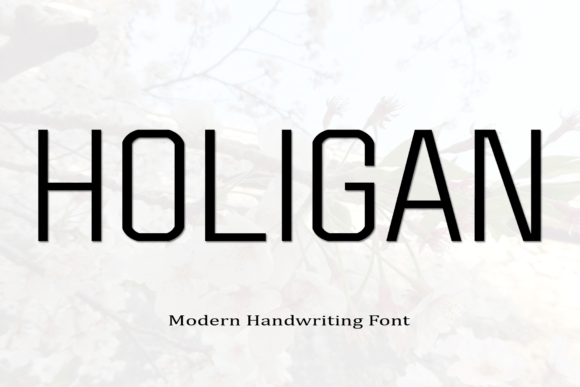
In the realm of typography, Holigan Font stands as a beacon of simplicity, a classic sans serif font that exudes a timeless elegance. Its strokes, crafted with a touch of randomness and freedom, lend it an air of spontaneity and creativity. This font is not just a collection of letters; it's an invitation to unleash your imagination and let your words dance across the page with grace and flair.
Whether you're a seasoned designer or just starting your creative journey, Holigan Font is your perfect companion. Its versatility knows no bounds, making it the ideal choice for a multitude of projects. From crafting elegant wedding vows that will forever hold a special place in your heart to designing captivating logos that leave a lasting impression, Holigan Font is here to elevate your designs to new heights.
Imagine your wedding vows, penned in the beautiful strokes of Holigan Font. The words, filled with love, commitment, and joy, will leap off the page, carrying the weight of your emotions with grace and elegance. Each letter, a symbol of your unwavering bond, will resonate with your guests, creating a moment of pure magic that will be cherished for a lifetime.
Or perhaps you're a creative entrepreneur, pouring your heart and soul into building your brand. Holigan Font will be your trusted ally, helping you create a striking brand identity that speaks volumes about your values and aspirations. Its clean lines and timeless appeal will make your brand shine, leaving a lasting impression on your customers.
Dive into the world of Holigan Font and watch your creative visions come to life. Let its effortless charm and versatility guide you as you craft designs that captivate and inspire. Join the countless designers who have discovered the magic of Holigan Font and unlock the full potential of your creativity.